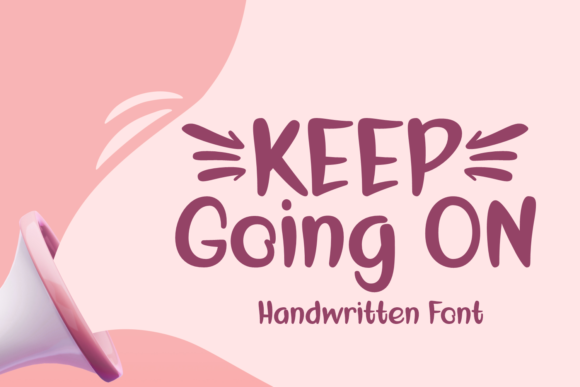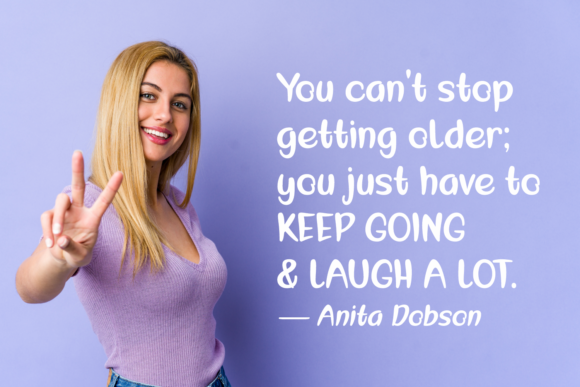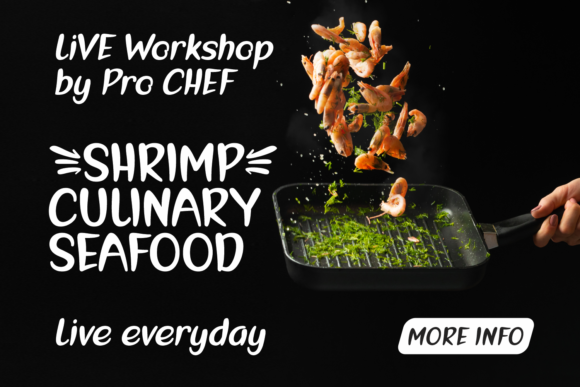
Keep Going on Font
About Keep Going on Font
Keep Going On is a delightful and sweet script font that exudes playfulness and charm. With its unique combination of a whimsical style and down-to-earth readability, this font is a perfect fit for a variety of design projects. Whether you’re working on motivational quotes, greeting cards, branding, or any other project that requires a touch of positivity, Keep Going On will bring a cheerful and uplifting vibe.
The playful nature of Keep Going On makes it ideal for designs that aim to inspire and encourage. Its charming and friendly appearance adds a sense of joy and optimism to your text, capturing attention and spreading positive vibes. Whether you’re designing motivational posters, social media graphics, or uplifting merchandise, Keep Going On will infuse your designs with a dose of positivity.
Despite its playful nature, Keep Going On remains easily readable, ensuring that your message is conveyed effectively. The letters are carefully crafted to maintain legibility while adding a touch of whimsy and style. This balance allows Keep Going On to be versatile in various design applications, including logos, packaging, merchandise, and more.
The charm of Keep Going On lies in its ability to evoke a sense of warmth and encouragement. It creates a connection with the audience, uplifting their spirits and inspiring them to keep going. By confidently incorporating Keep Going On into your projects, you can infuse them with a sense of motivation and positivity.
Let the playful and sweet nature of Keep Going On spark your creativity and add a touch of joy to your designs. Its versatility and readability make it a valuable asset for a wide range of design projects. So, embrace the whimsy and charm of Keep Going On, and watch as your designs come to life with a sense of playfulness and encouragement.